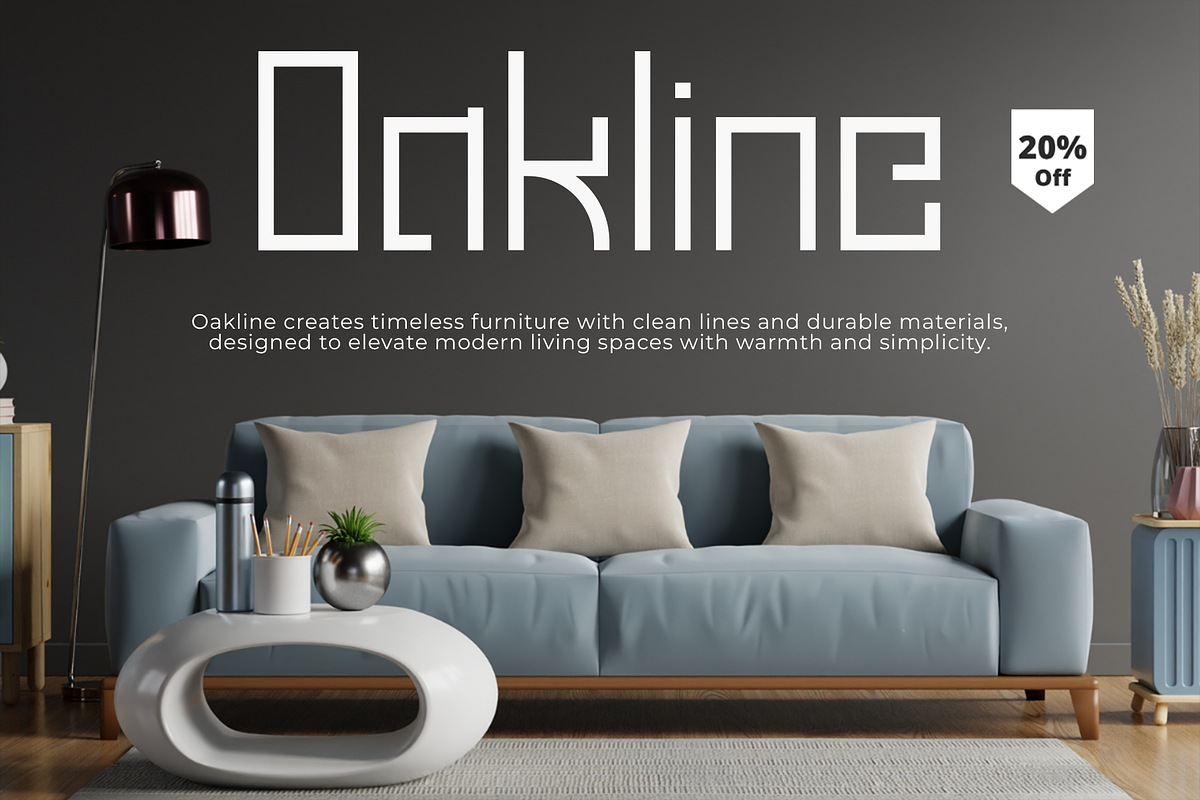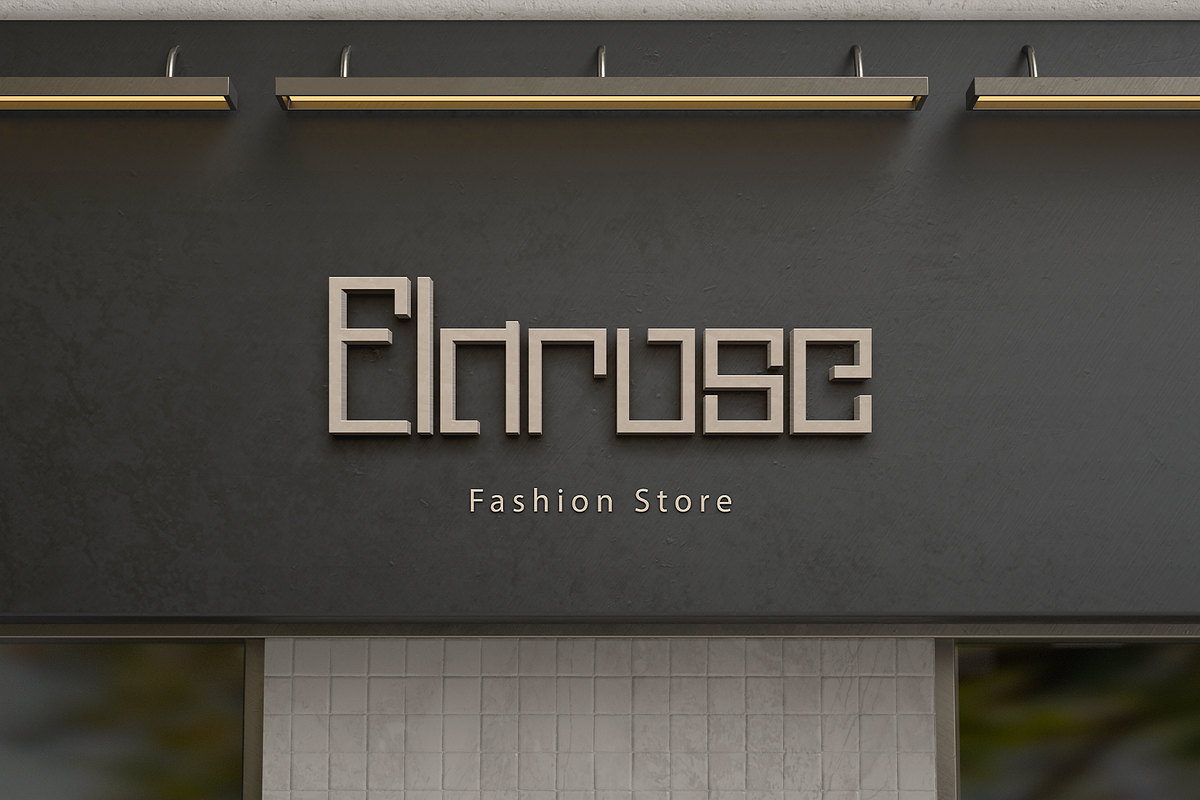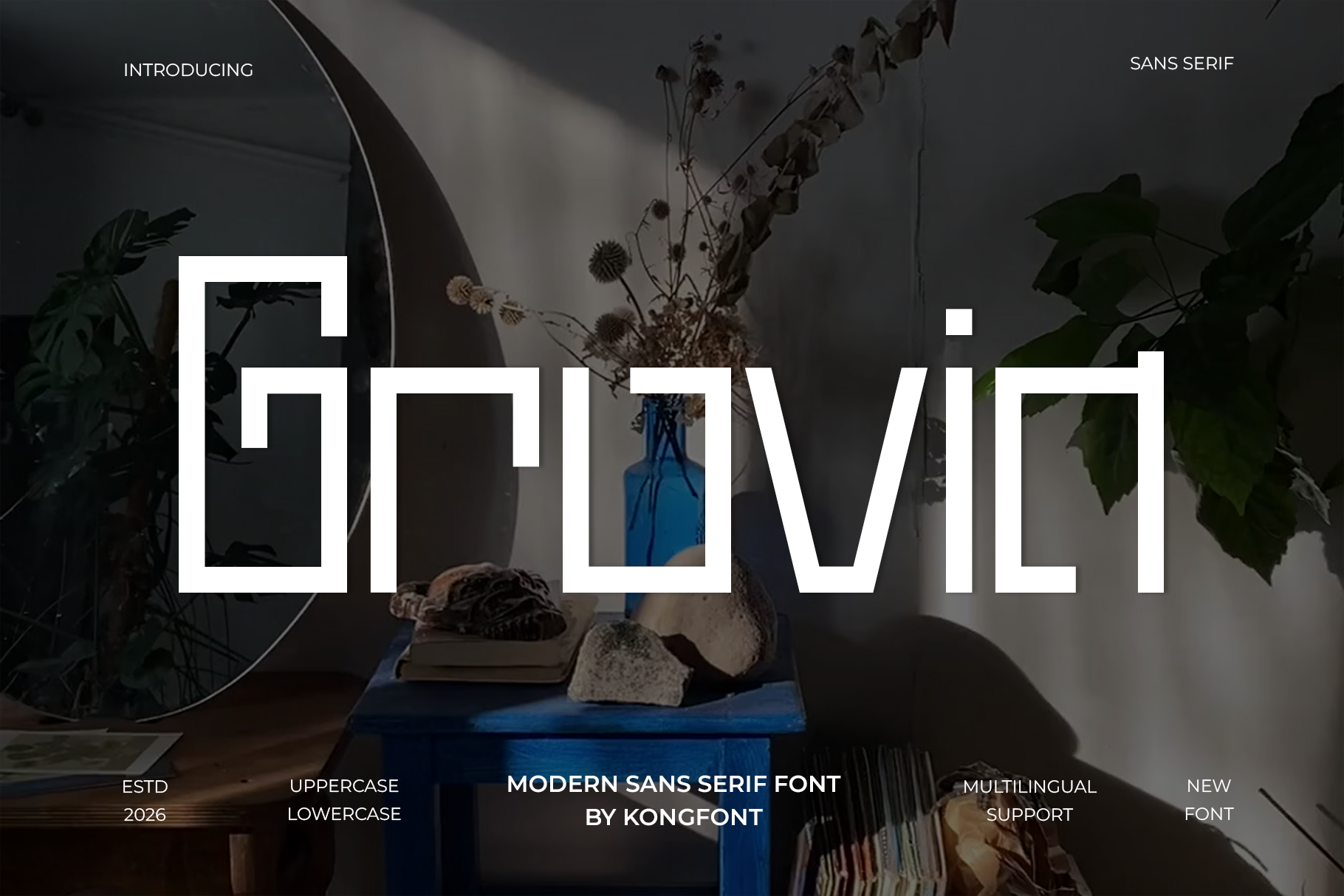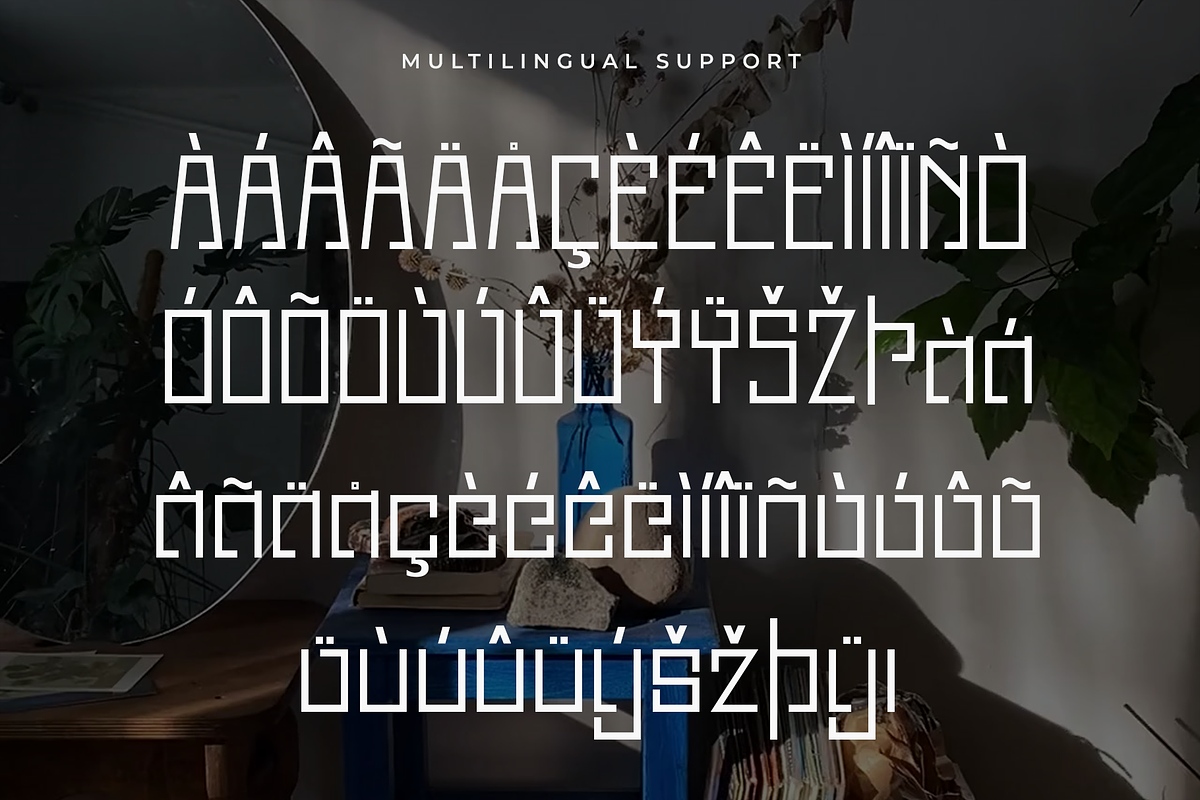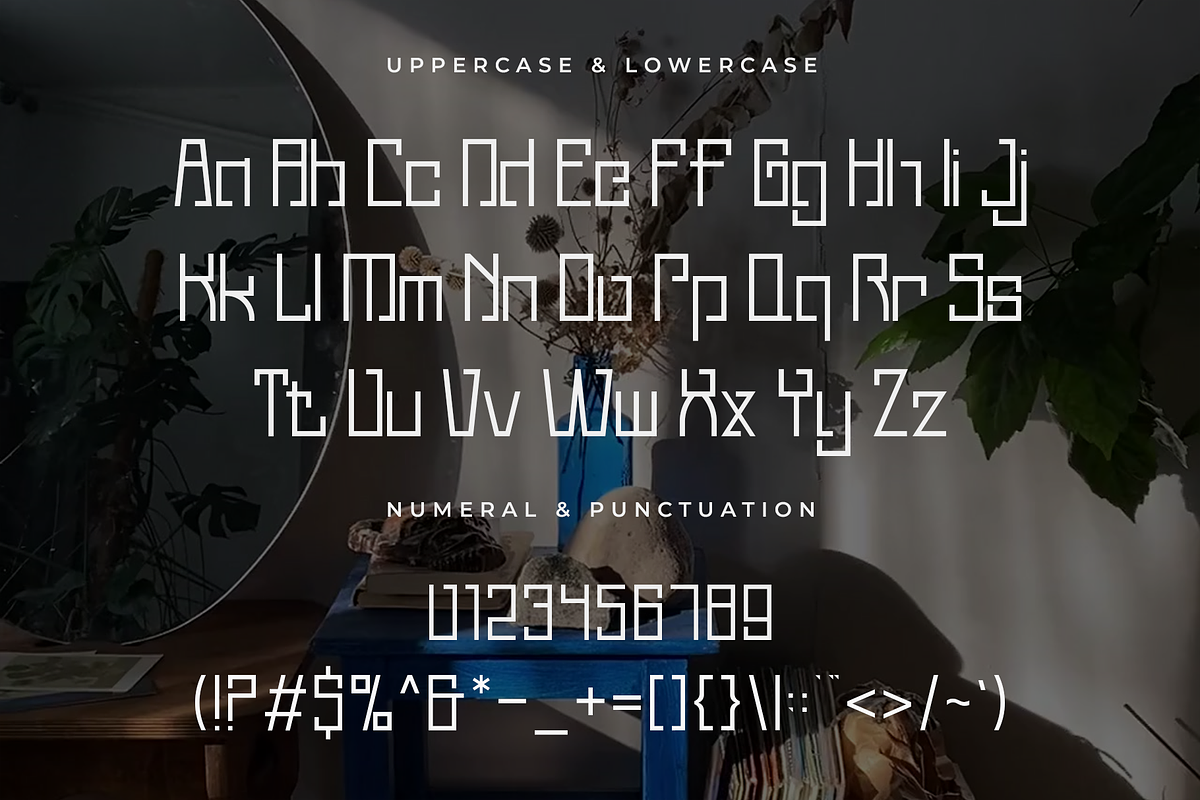
Grovia – Modern Sans Serif Font
Grovia is a modern sans serif font designed for clarity, versatility, and a strong contemporary presence. With clean lines, balanced proportions, and a minimalist aesthetic, Grovia delivers a professional look that works seamlessly across both digital and print designs.
Ideal for branding, corporate identities, startups, websites, UI/UX design, editorial layouts, presentations, and modern advertising, Grovia provides excellent readability while maintaining a refined visual style. Its neutral yet distinctive character makes it a reliable choice for headlines, body text, and logo design.